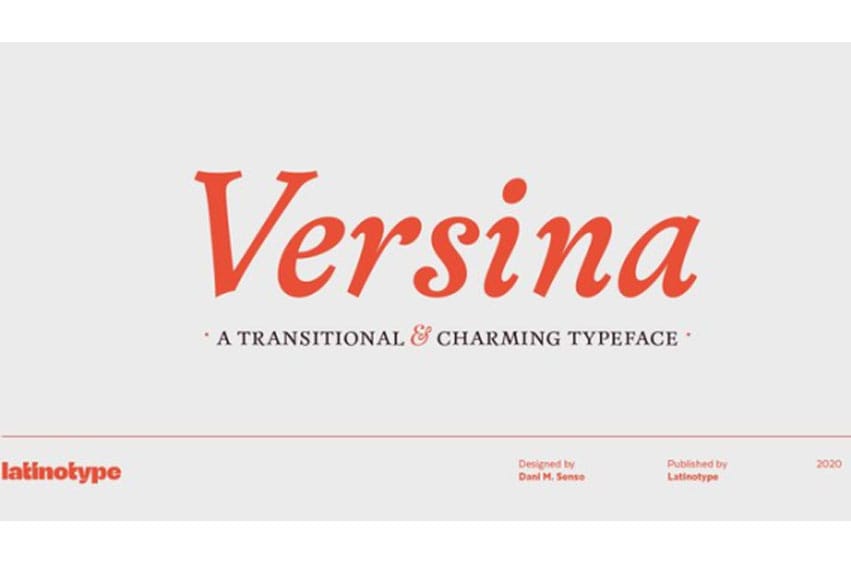
Versina Font is a display typeface with a unique and expressive yet moderate personality resulted from its organic elegant shapes which are inspired by Spanish transitional typefaces from the 18th century. This font is perfectly suitable for both titles and short text.
Versina features a flowing organic stroke and asymmetric bracketed serifs, and its shapes convey rhythm and dynamism. The font has a large x-height and its ascenders are shorter than the cap height, making it look more slender and modern. Calligraphic and crescent-like terminals give the design great formal richness.